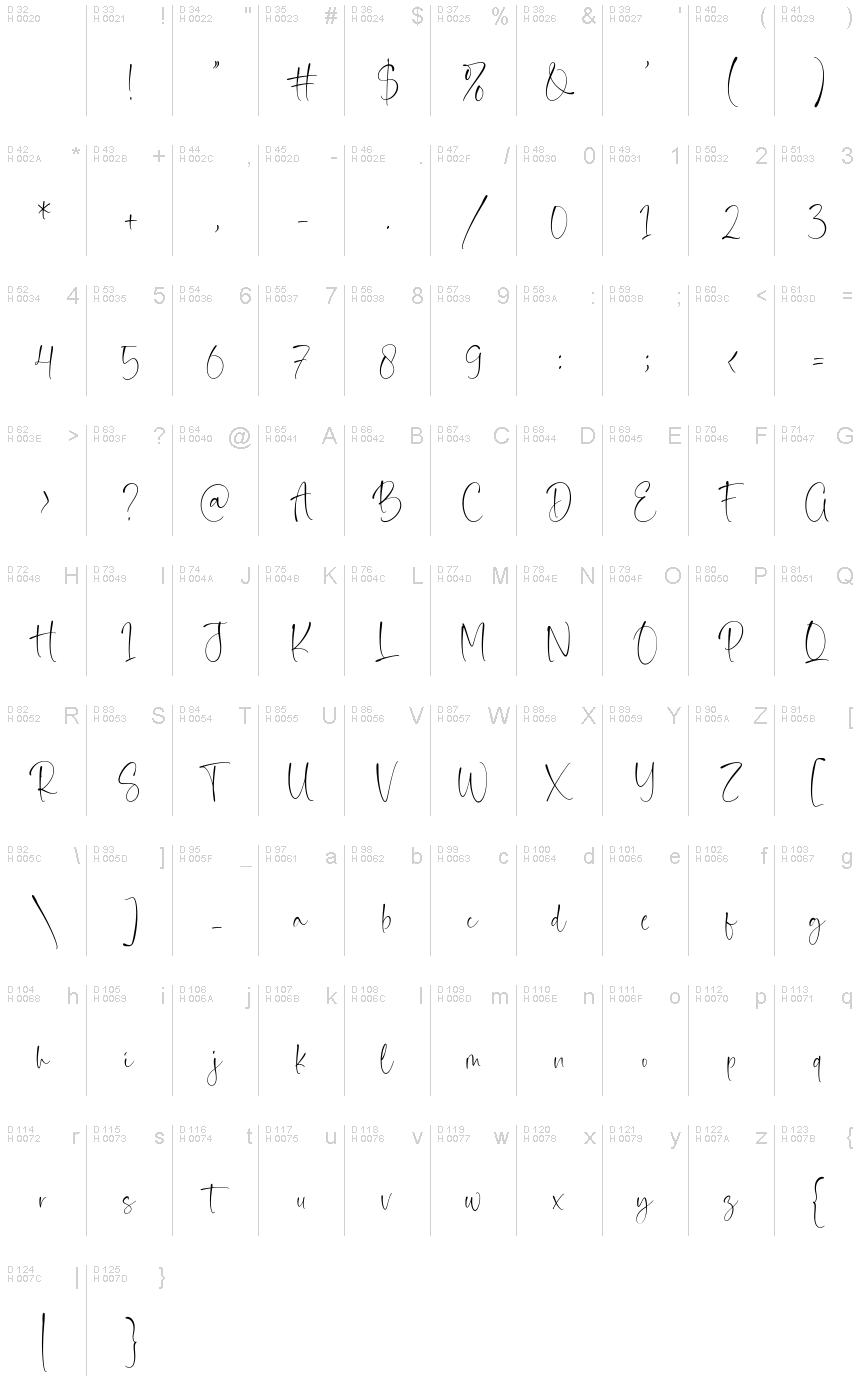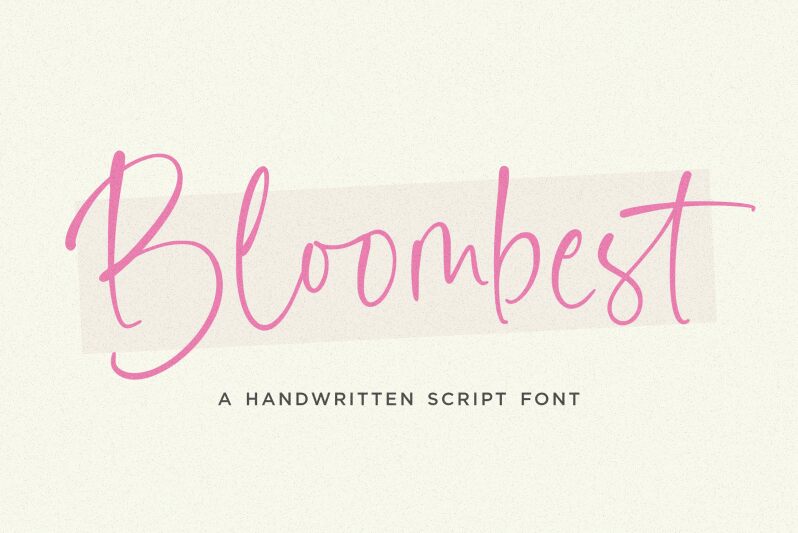
Bloombest
Bloombest font was created by Balpirick Studio. It is perfect for those who are needing of elegance and modernity for their designs. It's a flowing handwritten font, described by smooth curves and connected script. The playful mood and delicate strokes give it a casual elegance.
This font is suitable for crafting, kids projects or just any project that requires lightness and cuteness! Bloombest is perfect for stickers, party invitations, prints, greeting cards, logos, posters, bags, mugs etc.